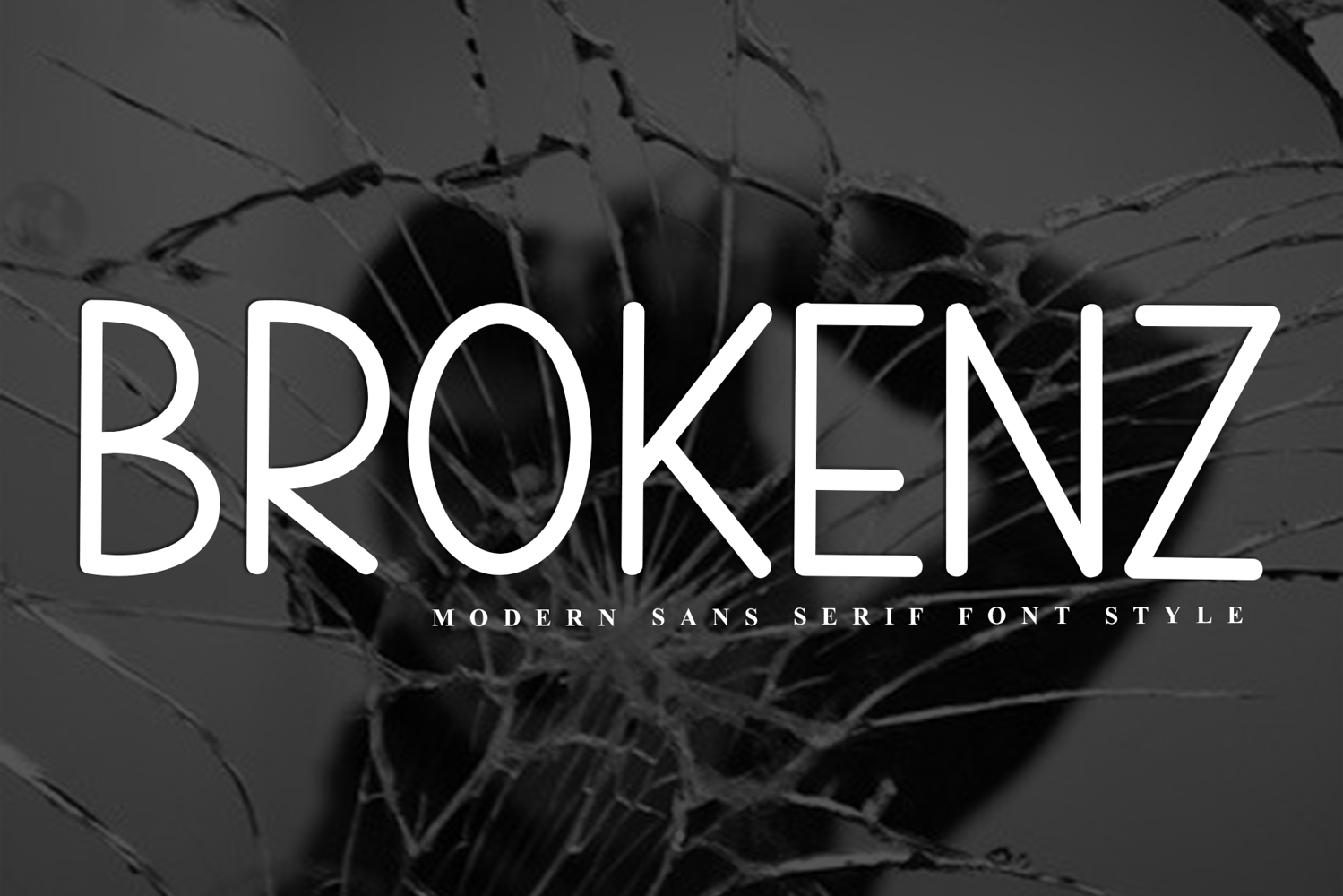
Brokenz
Brokenz is a beautiful and eye-catching font designed with a soft, unique touch. Its distinctive strokes give it a special character, making it meaningful and versatile for future use. With various characters, it’s perfect for design projects, crafts, and other creative works.